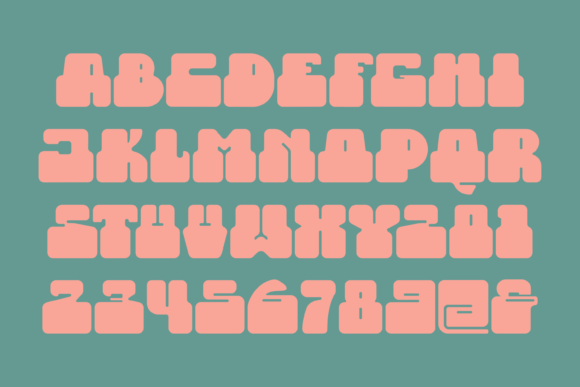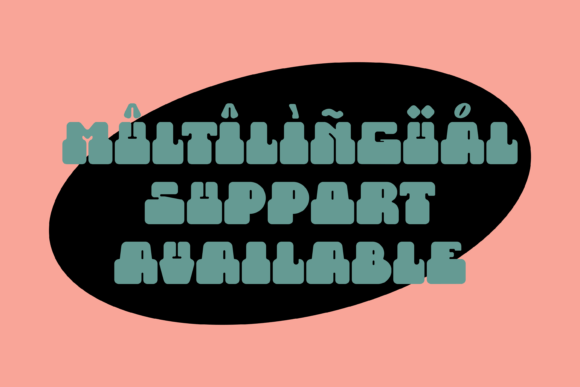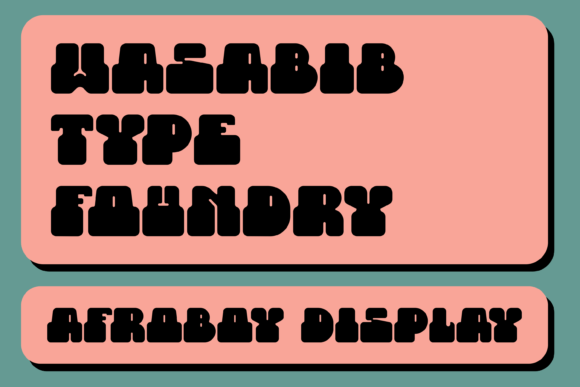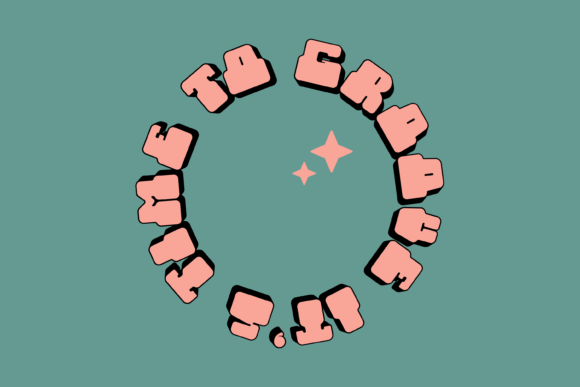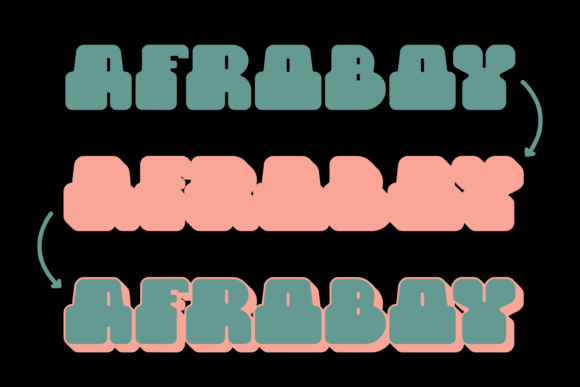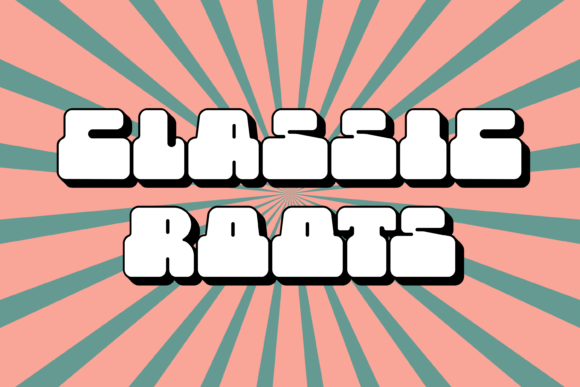
The Birth of a Bold New Font: Afroboy Font
Remember that moment when you stumbled upon a font that just clicked with your creative vision? For designers, this is a moment of pure magic. It’s the moment when a font’s unique personality resonates with your brand’s tone and style. For us, that moment came when we discovered the Afroboy Font. This obese font boasts a simple yet modern look, crafted with precision and care to capture the audience’s attention.
Designed to elevate your brand’s presence, Afroboy Font is the perfect addition to any design project. From corporate branding to digital ads, this versatile font adapts seamlessly to a variety of tasks. What sets it apart is the meticulous attention to detail that goes into every aspect of its design. Whether you’re a seasoned designer or just starting out, Afroboy Font is an excellent choice to add a fresh and fun vibe to your work.
Afroboy Font Key Features
- Unique Character Set: The Afroboy Font features a unique set of characters, including accented letters, punctuation marks, and symbols, making it suitable for multilingual typography and creative design projects.
- Font Style and Variations: The font family includes bold, regular, and italic styles, offering flexibility and versatility for different design applications and moods.
- Legibility and Readability: The Afroboy Font is designed to be highly legible and readable, even at small font sizes, making it an excellent choice for body text, headlines, and titles.
Afroboy Font Review
I recently had the chance to work with the Afroboy Font, and I must say it’s an interesting addition to any design project. ✨ One of the things that works well is the font’s unique aesthetic. It has a distinctive, playful feel that can add a lot of character to a design. The font’s bold lines and rounded edges make it perfect for headings and titles.
- ✨ Great for headings and titles due to its bold and playful nature.
- ✨ Unique aesthetic that can add a lot of character to a design.
- ✨ Supports a wide range of languages, making it a great option for international projects.
However, there are some limitations to keep in mind. ⚠️ The font’s boldness can sometimes make it difficult to read at smaller sizes. Additionally, the font’s playful nature may not be suitable for more formal or professional projects.
- ⚠️ Can be difficult to read at smaller sizes due to its bold nature.
- ⚠️ May not be suitable for formal or professional projects due to its playful aesthetic.
- ⚠️ Limited character set, which may cause issues with certain languages or special characters.
Overall, I think the Afroboy Font is a great addition to any designer’s toolkit. While it may not be suitable for every project, it’s perfect for adding a touch of personality and whimsy to a design. With a little care and attention, this font can really help a design stand out.
Use Afroboy font for:
– African-inspired designs and graphics.
– Music-related projects, such as album covers or posters.
– Cultural events and festivals.
– Add a unique and eye-catching touch to your designs.
Alternatives to Afroboy Font for Designers
Playfair Display is a luxurious, elegant serif font that is perfect for high-end branding and advertising. It features intricate details and ornate flourishes, making it a great choice for creating a sophisticated and refined look.
Compared to Afroboy Font, Playfair Display has a more formal and classic feel, whereas Afroboy Font has a more modern and playful vibe. Playfair Display is ideal for use in headings and titles, while Afroboy Font is better suited for body text.